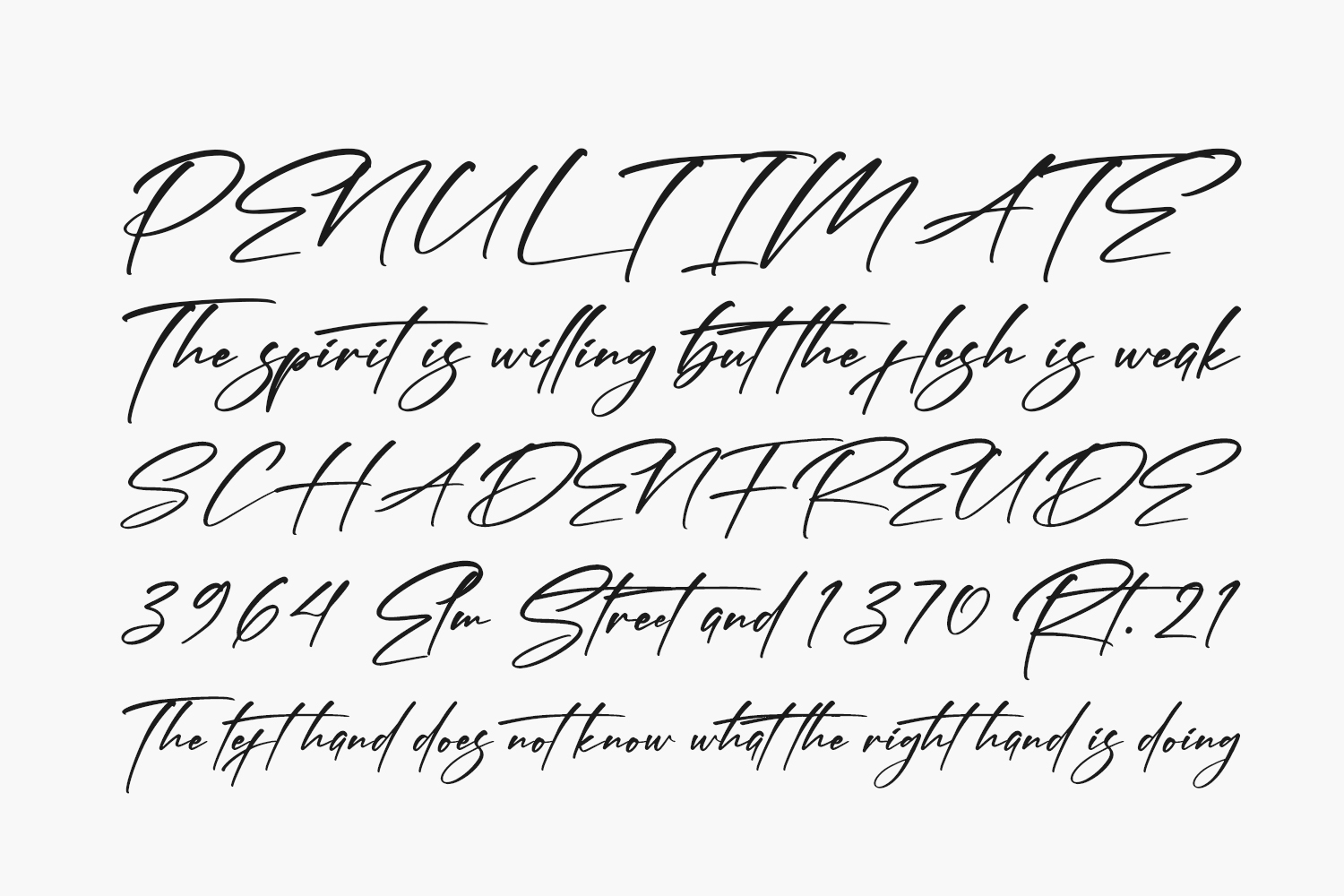
Banetigra Free Font embodies a delightful cursive script, lending sweetness to any design it graces. This graceful font enhances a wide array of design concepts, infusing a joyful and romantic essence into each project. Banetigra Free Font is free for personal use only. Please purchase the full version for commercial use.
Designed by Letterena Studios